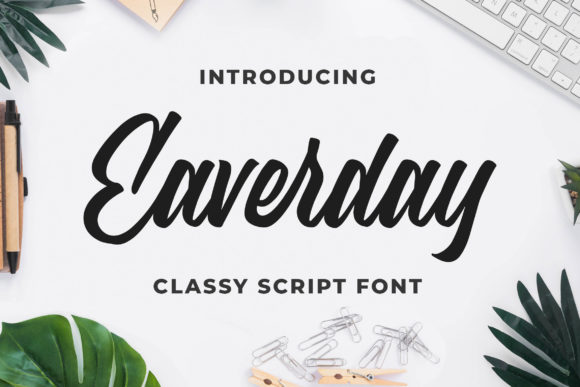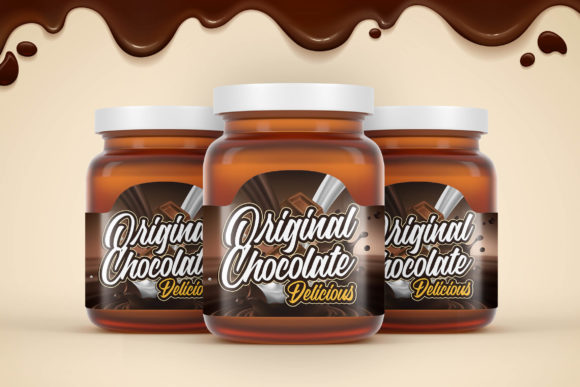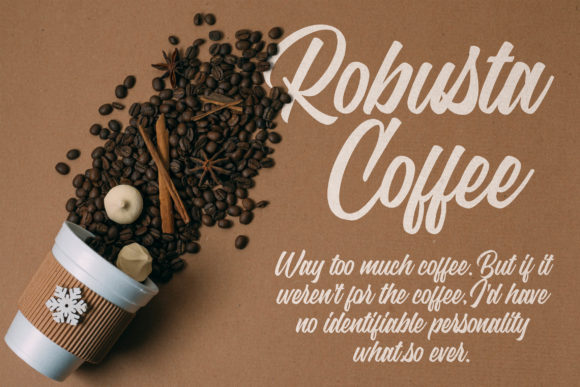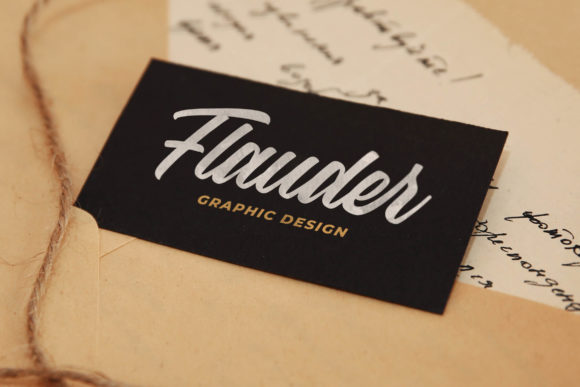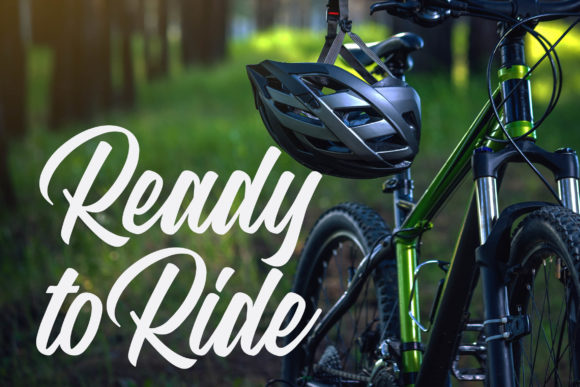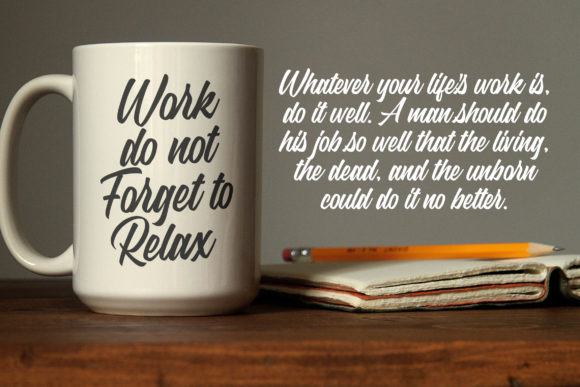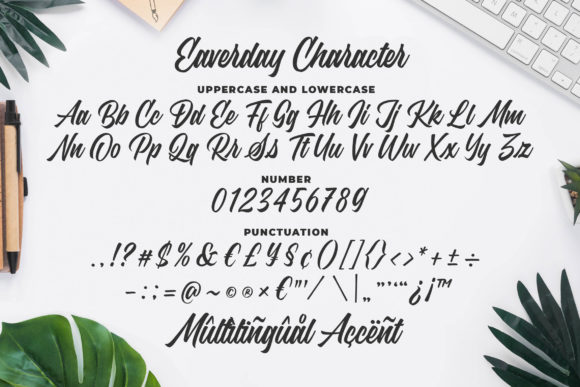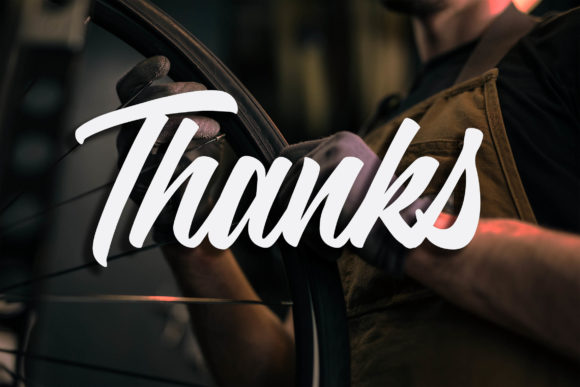
Eaverday Font
About Eaverday Font
Eaverday is authentic and lovely, but also elegant. This versatile script font has a wide range of applications ranging from greeting cards to headlines and is guaranteed to add a romantic touch to your next design.